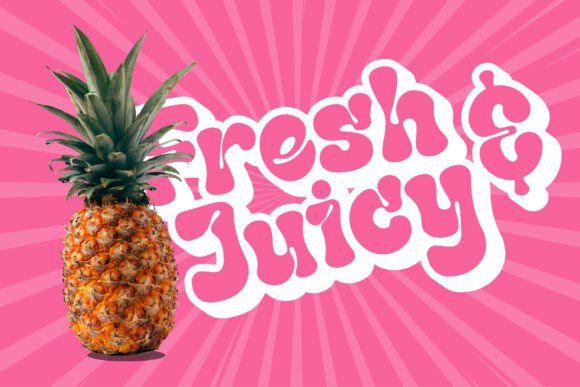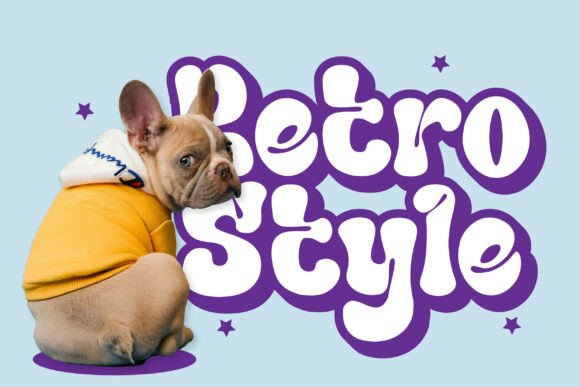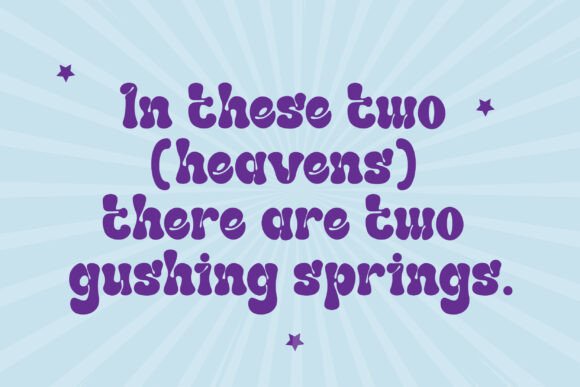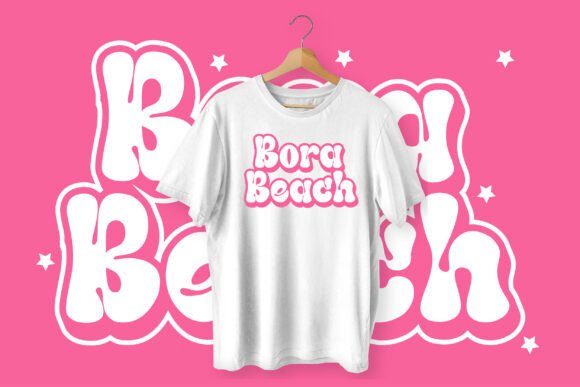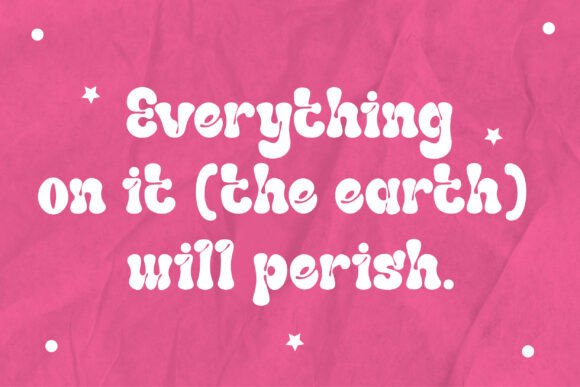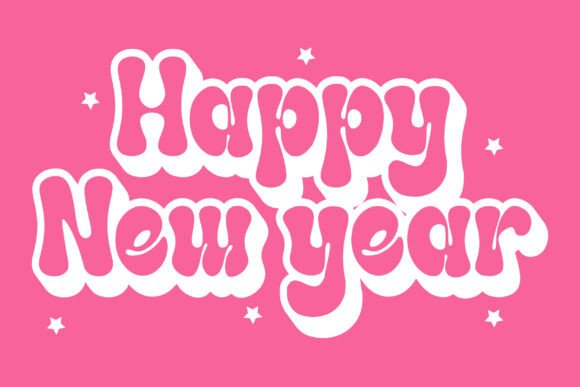
Get Ready to Groove with the Bisma Groovy Font
You know that moment when you’re scrolling through a vintage magazine and you stumble upon a design that instantly transports you back in time? The nostalgic feeling, the carefree spirit, and the pure creativity that oozes out of it – that’s what we’re going for with the Bisma Groovy Font.
This retro-inspired font is all about capturing the essence of the hippie era, with its vibrant and charismatic vibe. Whether you’re working on a logo, branding initiative, advertisement, or invitation, the Bisma Groovy Font is the perfect addition to bring that extra touch of authenticity and playfulness to your designs.
For designers, the Bisma Groovy Font is a valuable asset that can elevate your work to new heights and make it truly captivating. With its versatility and vintage charm, it’s an invaluable addition to any project, making it a must-have for anyone looking to add a touch of nostalgia and creativity to their designs.
Bisma Groovy Font Key Features
- Font Family: Bisma Groovy Font is a unique, modern sans-serif font family.
- Size: The font family includes a wide range of weights and styles, from Thin to Black, with corresponding sizes to suit various design needs.
- Resolution: Optimized for high-resolution displays, ensuring crisp and clear readability on modern devices.
- Unique Characteristics: Bisma Groovy Font features a distinctive, rounded design with subtle curves, making it perfect for creating visually appealing and modern designs.
- Language Support: Supports multiple languages, including Latin, Cyrillic, and Greek scripts, making it a versatile choice for global design projects.
Bisma Groovy Font Review
Overall, I think Bisma Groovy Font is a fun and quirky addition to any design project. Here’s what I like about it:
- ✨ Unique and playful letterforms that add a touch of whimsy to text.
- ✨ A wide range of font weights and styles to choose from, making it versatile for different design applications.
- ✨ The font is well-suited for modern and trendy designs, making it a great choice for fashion, music, or arts-related projects.
- ⚠️ The font may be too quirky or unconventional for more formal or traditional designs.
- ⚠️ Some characters, such as lowercase ‘a’ and ‘e’, may be difficult to read in certain contexts.
- ⚠️ The font’s irregularities may make it challenging to use in situations where precision and consistency are crucial.
In my opinion, Bisma Groovy Font is a great choice for designers looking to add a bit of personality and flair to their work. While it may not be suitable for every project, it’s a fun and versatile font that can add a unique touch to modern designs.
Getting the Most Out of Bisma Groovy Font
To get the most out of Bisma Groovy Font, try the following:
- Use the font in combination with other creative elements, such as graphics and images.
- Customize the font to match your brand’s identity and style.
Bisma Groovy Font is perfect for:
- Creating eye-catching social media graphics.
Alternatives to Bisma Groovy Font for Designers
The Great Vibes Font is a modern, elegant, and cursive script font designed by Handmade Fonts. It’s perfect for creating a sense of sophistication and elegance in your designs, especially for headings and titles. Great Vibes Font is similar to Bisma Groovy Font in its playful and creative nature but has a more refined and polished look.
Aleo Font
Aleo is a beautiful, elegant, and modern script font designed by Pablo Impallari and Martin Somm. It’s ideal for use in branding, advertising, and editorial design, where you want to convey a sense of luxury and sophistication. Aleo Font has a similar feel to Bisma Groovy Font but with a more polished and refined look, making it suitable for a wider range of design applications.
Carolyna Pro is a modern, elegant, and cursive script font designed by Alejandro Paul. It’s perfect for creating a sense of sophistication and elegance in your designs, especially for headings and titles. Carolyna Pro Font has a similar feel to Bisma Groovy Font but with a more refined and polished look, making it suitable for a wider range of design applications.